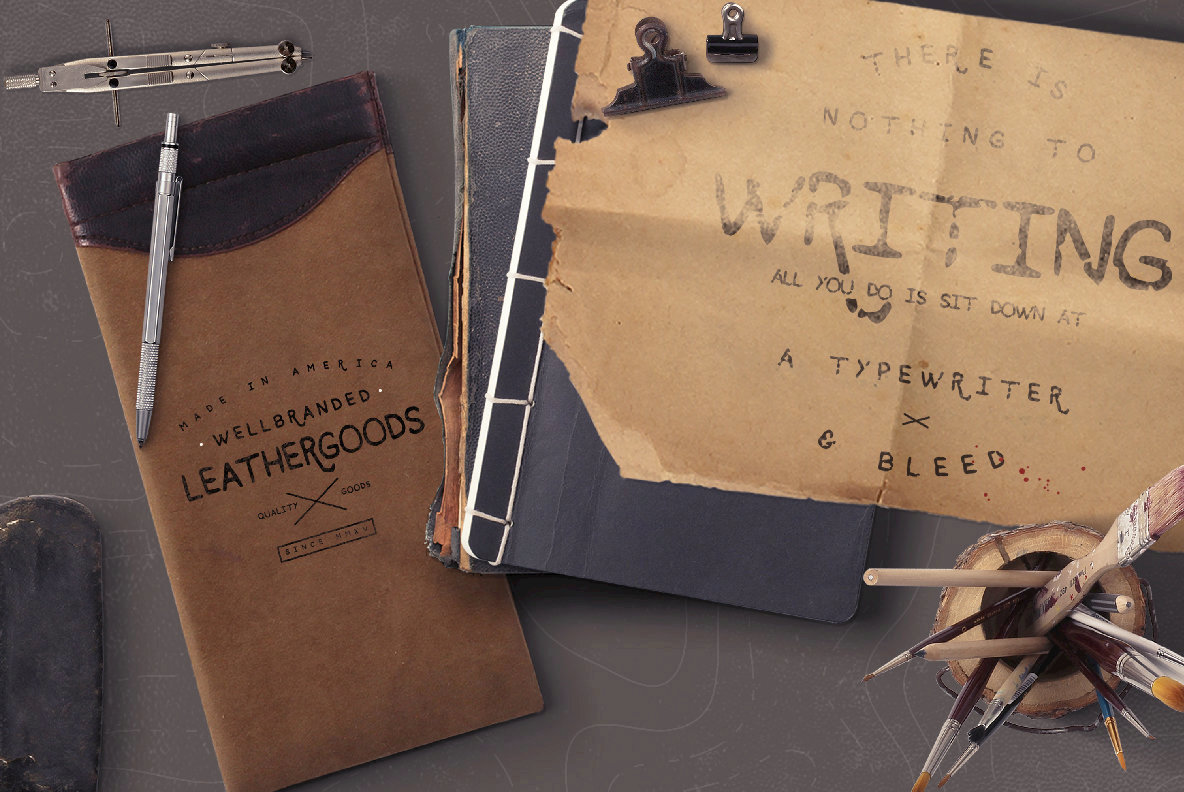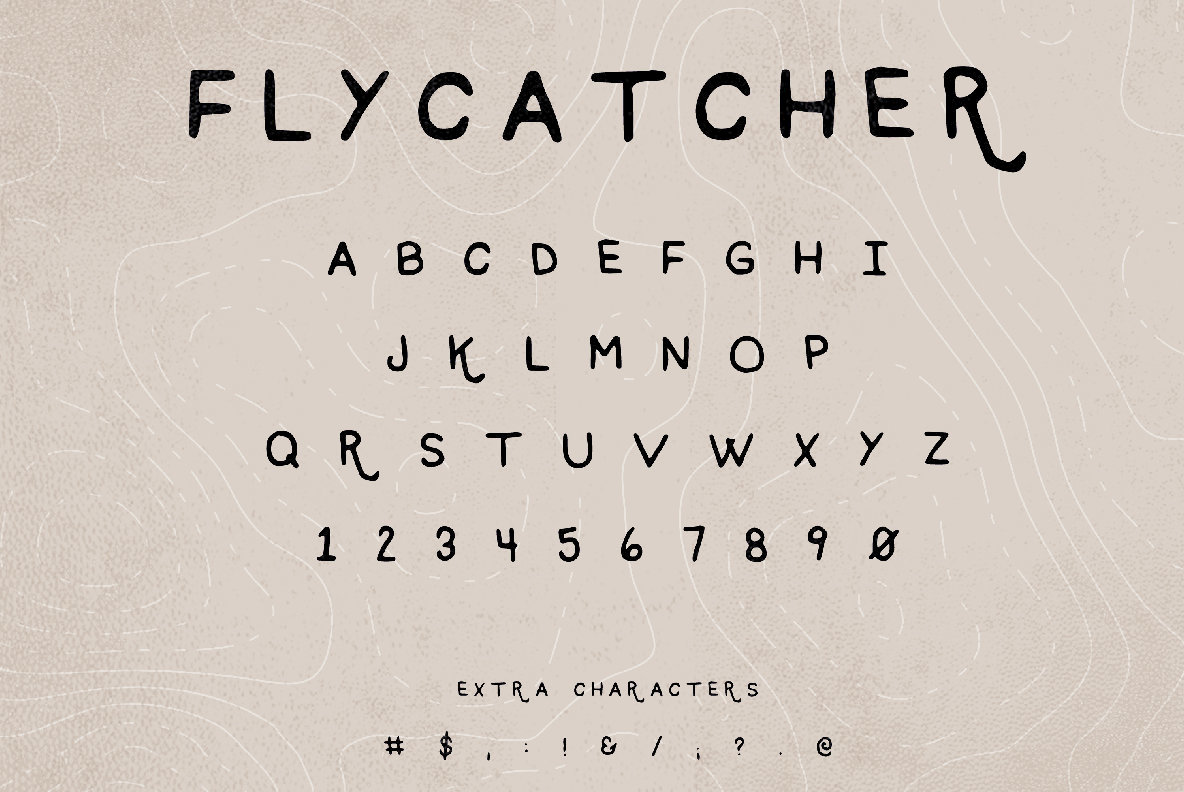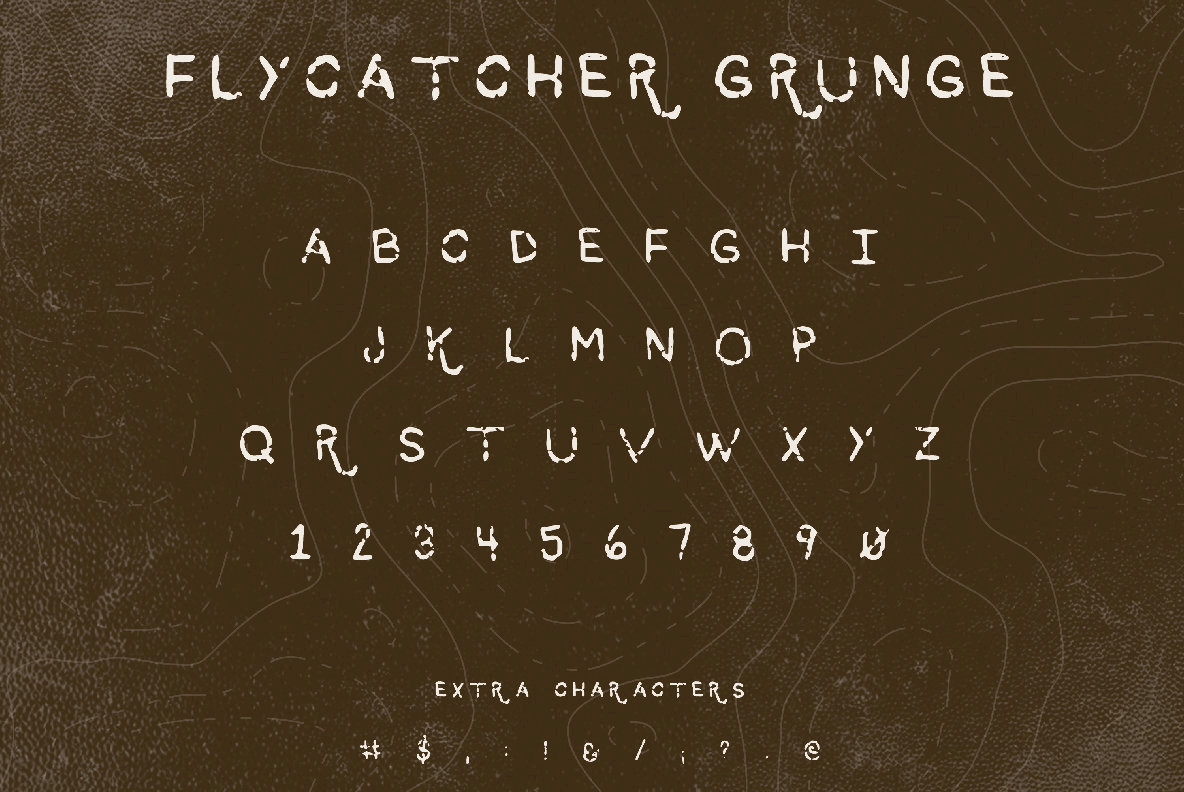
Flycatcher Font
Flycatcher is a new hand drawn typeface that I’ve created having noticed a huge demand for fonts of this nature at a reasonable price. It pairs incredibly well with script fonts and gives each piece a touch of character. Apply it to logos, prints, quotes, clothing, and so much more!